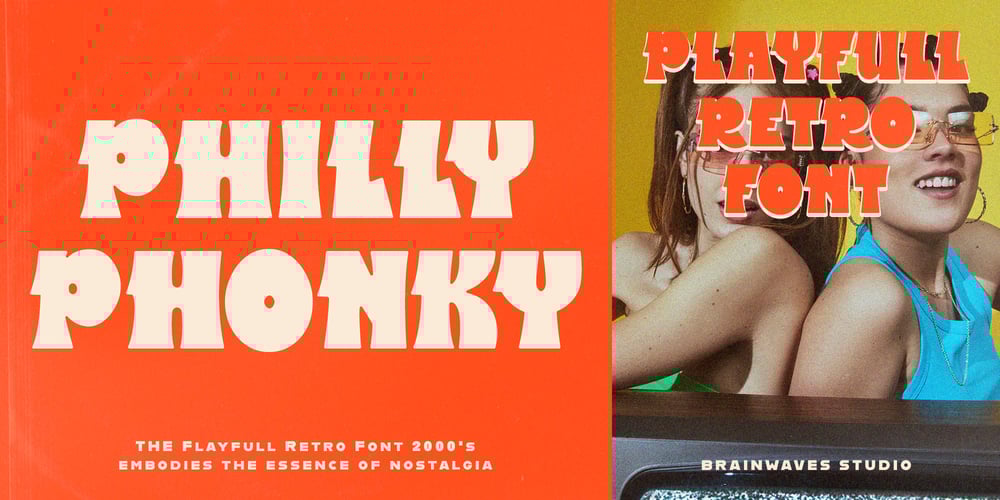
Philly Ponky Font Family was designed by Lucky Fitriadi and published by Brainwaves Studio. Philly Ponky contains 2 styles and family package options. This is our new font, Philly Ponky its name of our font, playful retro bold, this font really good for playful logo, playful identity, retro logo, retro style design and have a bold taste.